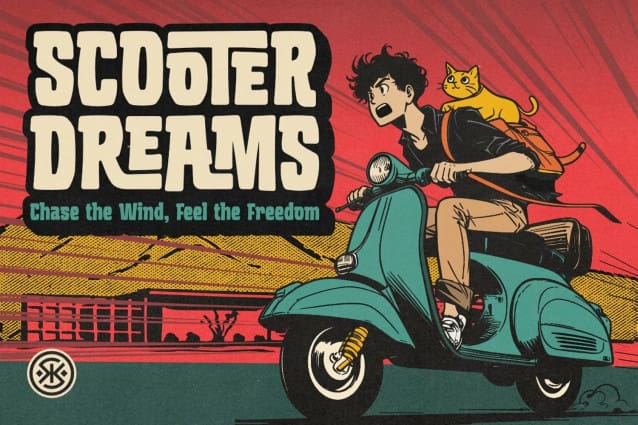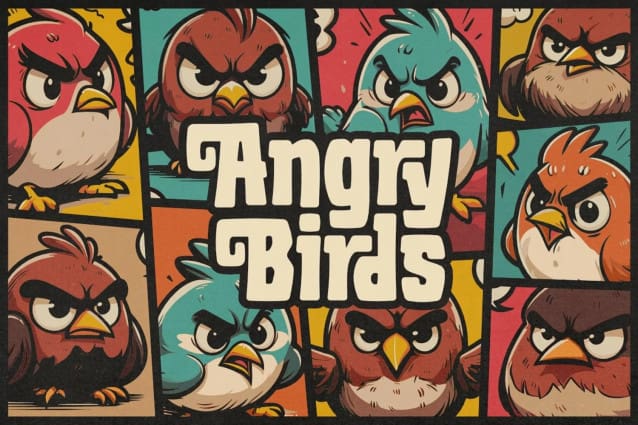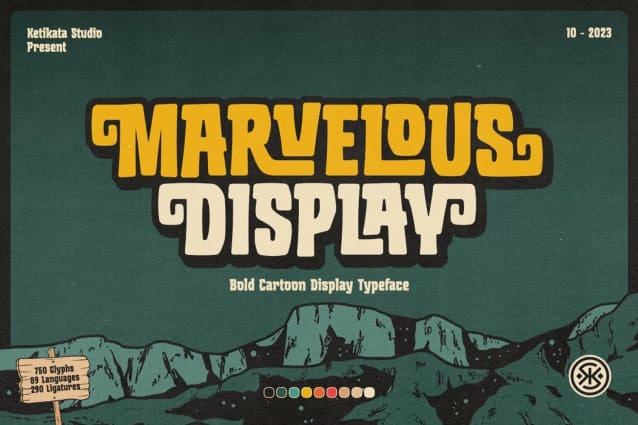
Marvelous Display Font
Marvelous Display Font is a bold and vibrant font that brings a touch of whimsy and playfulness to your projects. With its thick characters and a cartoon-inspired theme, this font is designed to inject a sense of fun and humor into any design. Ideal for gaming, playful branding, and creative projects, Marvelous Display captures the essence of joyful spontaneity. Each letter is crafted with a distinct and charismatic flair, making it a perfect choice for adding a dash of excitement and lightheartedness to your visual creations. Get ready to infuse your designs with a burst of energy and charm using Marvelous Display!